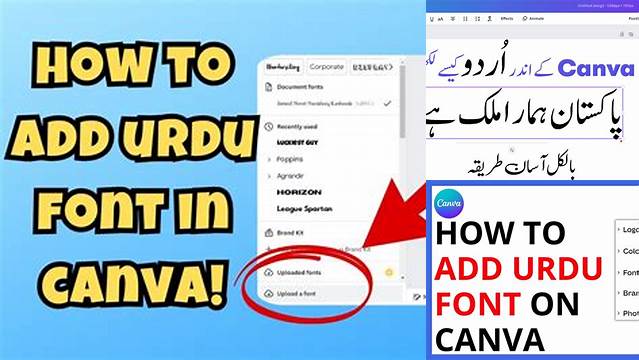
Add Urdu Fonts To Canva Free: A Simple Guide
Hey guys! Are you looking to spice up your Canva designs with beautiful Urdu fonts? You've come to the right place! Adding Urdu fonts to Canva, especially the free version, might seem a little tricky at first, but trust me, it's totally doable. In this guide, we'll walk you through the process step-by-step, ensuring you can create stunning visuals that resonate with your Urdu-speaking audience. Whether you're designing social media posts, presentations, or anything else, incorporating the right font is crucial for conveying your message effectively and aesthetically. So, let's dive in and explore the world of Urdu typography in Canva!
Canva is a fantastic platform for graphic design, offering a wide range of features and templates that cater to various creative needs. However, one common challenge users face is the limited selection of Urdu fonts available by default. Urdu, with its elegant script and rich cultural heritage, requires specific fonts that accurately represent its unique characters and ligatures. While Canva does offer some font options, they might not always be sufficient for your specific design requirements. This is where the ability to upload and use custom fonts comes in handy. By adding your own Urdu fonts, you gain greater control over your designs and can ensure they reflect the authenticity and beauty of the Urdu language. Plus, using the correct fonts enhances readability and makes your content more engaging for your target audience. Think of it like choosing the right attire for an occasion β the font is the attire for your words, and it needs to be just right!
Why Add Urdu Fonts to Canva?
Adding Urdu fonts to Canva can significantly enhance the visual appeal and cultural relevance of your designs. Urdu is a beautiful and expressive language, and using appropriate fonts is crucial for conveying the intended message effectively. Many designers and content creators seek to incorporate Urdu script into their work for various reasons, including:
- Cultural Authenticity: Using Urdu fonts allows you to create designs that resonate with Urdu-speaking audiences, preserving cultural nuances and traditions.
- Enhanced Readability: Urdu has unique characters and ligatures that require specific fonts for optimal readability. Generic fonts may not render these characters correctly, leading to confusion.
- Creative Expression: A wider selection of fonts opens up new creative possibilities, enabling you to match the font style with the overall tone and theme of your design.
- Targeted Communication: For businesses and organizations targeting Urdu-speaking communities, using Urdu fonts demonstrates cultural sensitivity and improves communication effectiveness.
Letβs be honest, guys, using the right font can make or break your design! Imagine trying to write a heartfelt poem in Comic Sans β it just wouldn't have the same impact, right? Similarly, using a generic font for Urdu text can diminish its beauty and clarity. By adding custom Urdu fonts to Canva, you ensure that your designs not only look professional but also truly connect with your audience. Plus, it's a fantastic way to showcase the rich heritage and artistic flair of the Urdu language. So, whether you're creating invitations, social media graphics, or marketing materials, having a diverse range of Urdu fonts at your disposal is a game-changer.
Finding Free Urdu Fonts
- Font Squirrel: This website curates a selection of high-quality, free fonts that are licensed for commercial use. You can find some hidden gems here, so it's worth exploring.
- Creative Commons Websites: Platforms like Behance and Dribbble often feature designers who generously share their font creations under Creative Commons licenses. Be sure to carefully review the specific license terms to understand how you can use the font.
When searching for fonts, keywords are your best friends. Try using terms like "free Urdu fonts," "open-source Urdu fonts," or "Urdu Nastaliq fonts" to narrow down your search. And hey, don't be afraid to get a little creative with your queries! You might stumble upon some truly unique and stunning typefaces. Also, guys, a pro tip: before downloading any font, make sure to preview it and see how the characters render. Some fonts might look great in the sample text but might not be as legible when used in longer passages. So, a little bit of research can save you a lot of headaches down the road. Happy font hunting!
Step-by-Step Guide: Adding Urdu Fonts to Canva Free
Okay, folks, now for the main event! Let's get those Urdu fonts into Canva so you can start creating some amazing designs. The process is actually quite straightforward, but we'll break it down into easy-to-follow steps to make sure everyone's on the same page. Keep in mind that while Canva's free version has some limitations, adding custom fonts is a feature available to all users, which is awesome!
Canva is a powerful tool for graphic design, and the ability to add custom fonts takes its capabilities to the next level. Whether you're creating social media posts, presentations, invitations, or anything else, having access to a diverse range of Urdu fonts will undoubtedly enhance your creative expression.